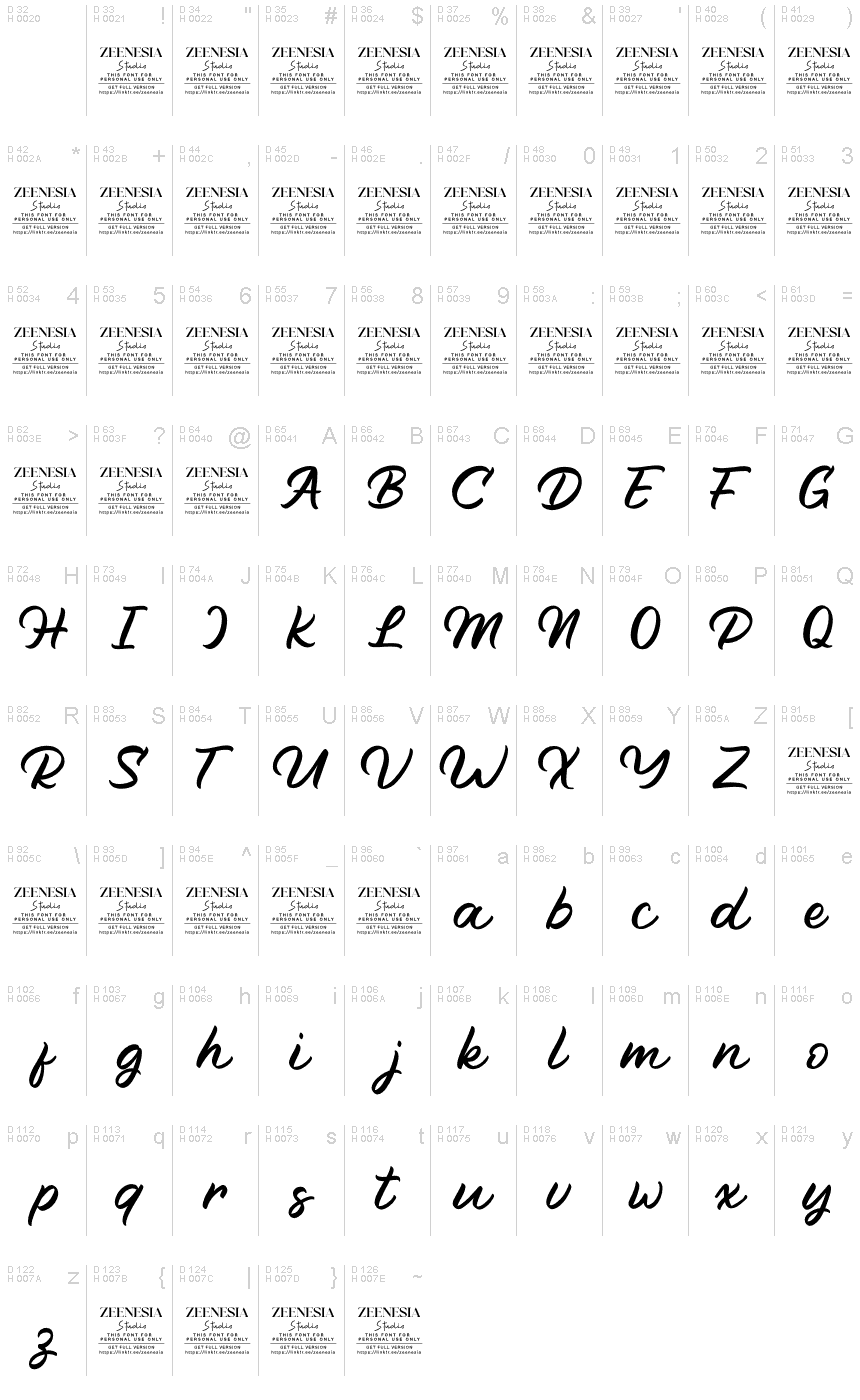
Better Delight, crafted by Zeenesia Studio, is an enchanting handwritten font that adds a touch of elegance to any project. With its flowing curves and graceful strokes, this font is perfect for wedding invitations, greeting cards, and feminine branding. Its versatility shines through in blog headers, fashion magazines, and beauty product packaging. The semi-bold typeface captures attention while maintaining readability on both digital and print platforms. Embrace the beauty of Better Delight to elevate your designs with a genuine handwritten feel that leaves a lasting impression.